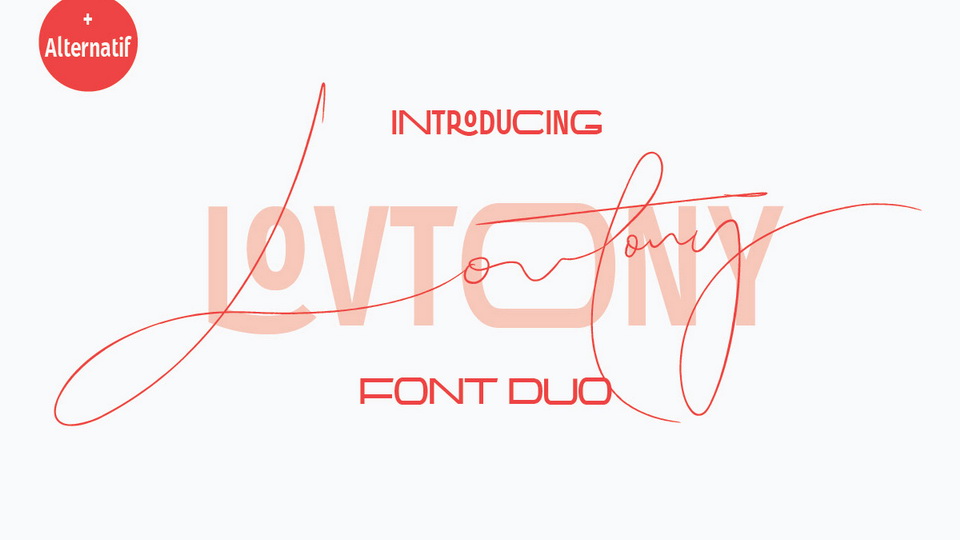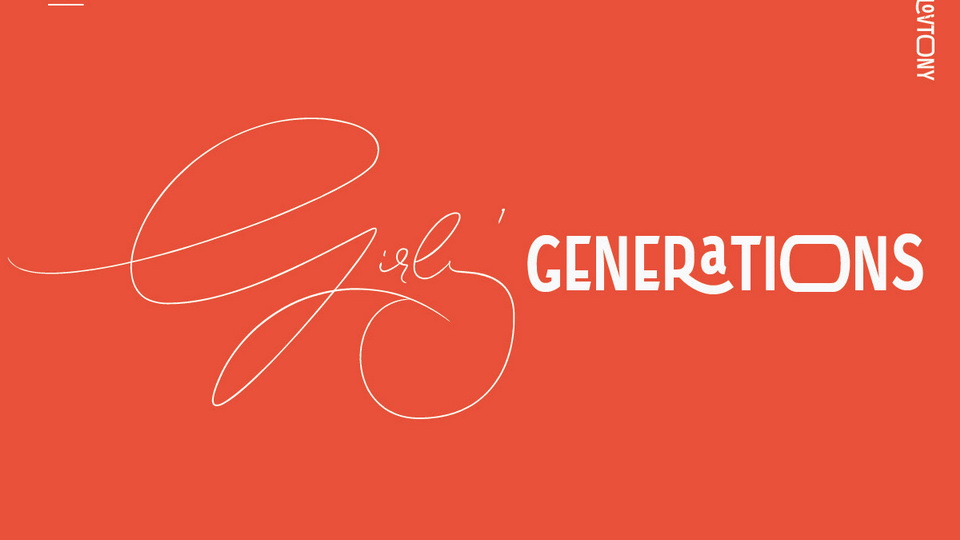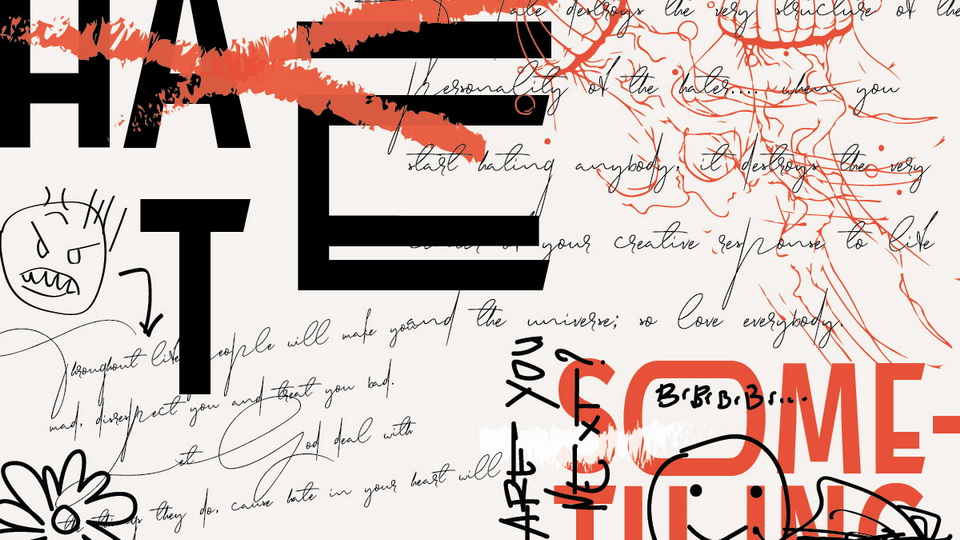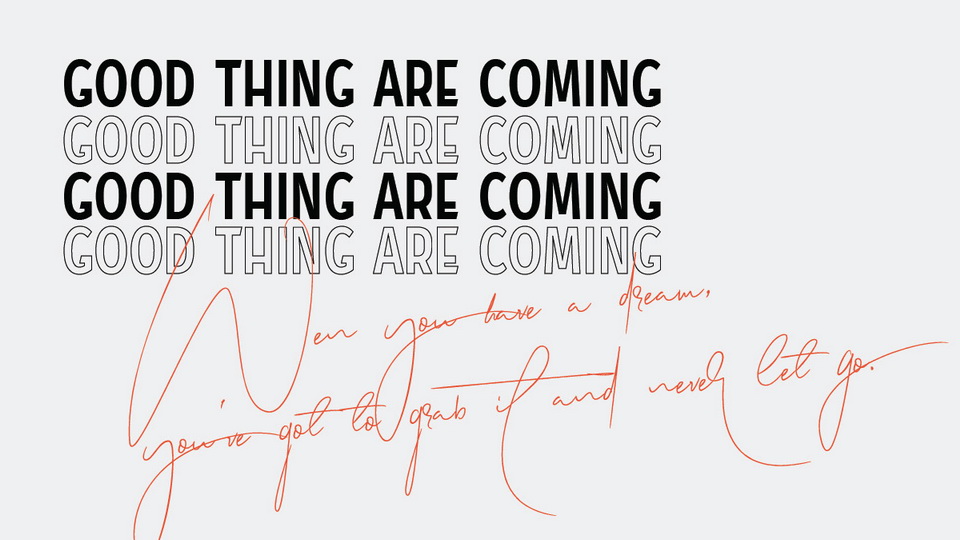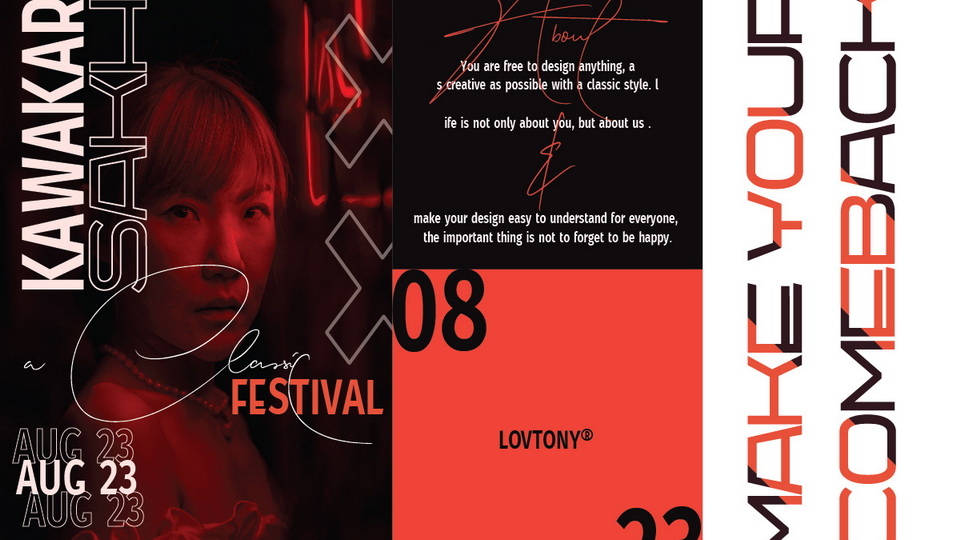
Lovtony Font Duo
Lovtony is a classic font duo of an elegant script and sans serif, combined in a luxurious typography. Lovtony is also great for creating beautiful logos, posters, wedding invitations, blog posts, social media, and more!